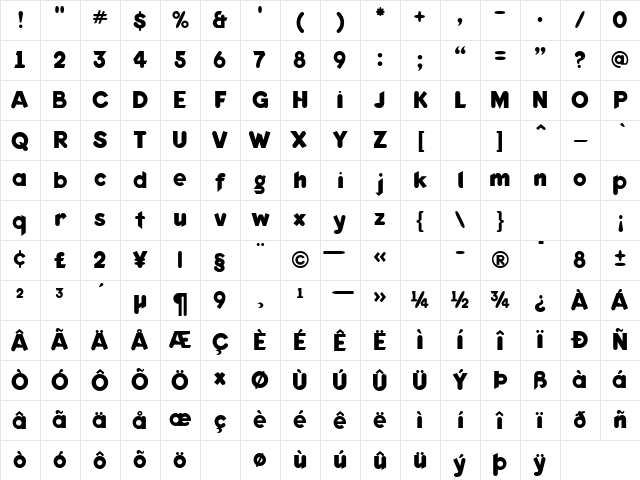
Keedy SansBold
Style: SansBold
Design Context for Keedy
Keedy is a composed and adaptable typeface that performs quietly and consistently across a wide range of design contexts. Its bold stroke weight gives it real presence on the page.